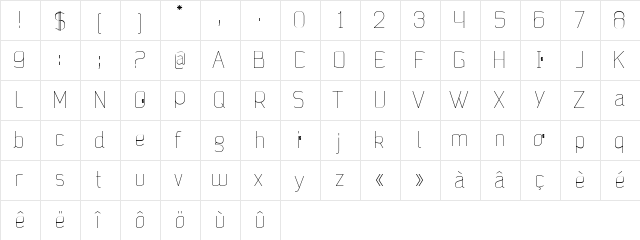
Jalane_light Jalane_light
| Foundry | BenoԴ Sjڨolm |
| Designer | BenoԴ Sjڨolm |
Design Context for Jalane_light Typeface
Jalane_light offers clean, dependable letterforms without strong stylistic allegiance, making it a practical choice for designers who need flexibility. The delicate stroke weight brings airiness and refinement to layouts.